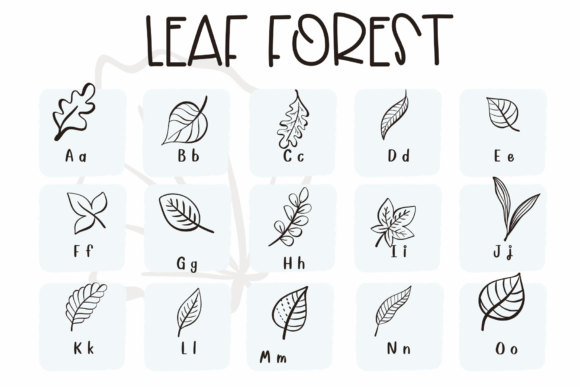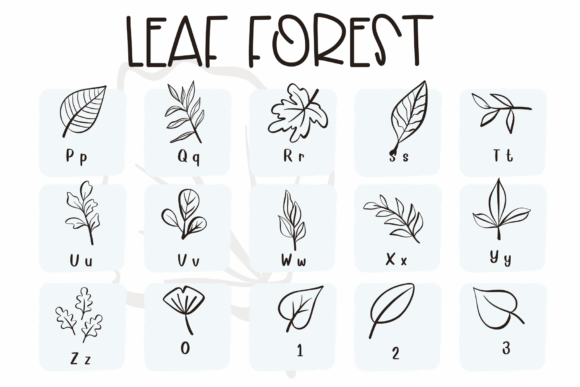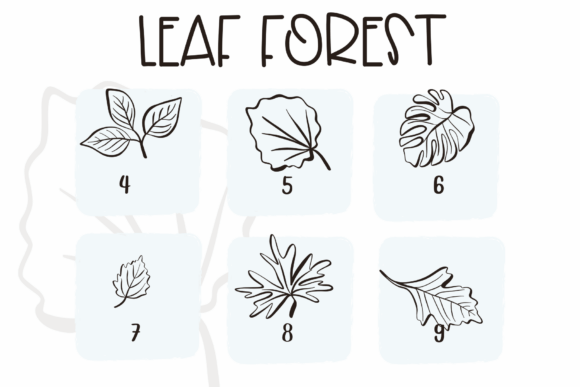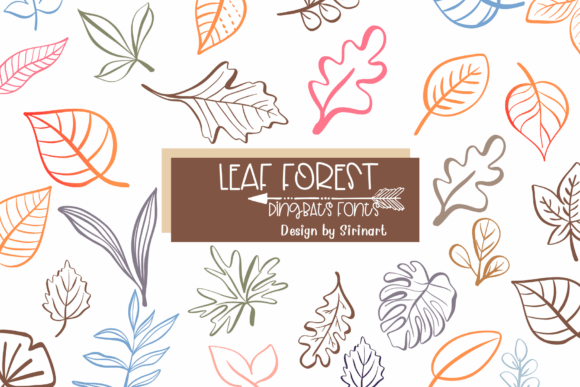
Introduction to Leaf Forest Font
Leaf Forest is a beautiful dingbats font inspired by the natural elegance of leaves and botanical elements.
Each character is designed as a delicate hand-drawn leaf illustration, bringing a calm, organic, and nature-inspired feel to your designs This font includes a lovely collection of botanical doodle icons such as oak leaves, tropical leaves, branches, plant stems, and various natural leaf shapes.